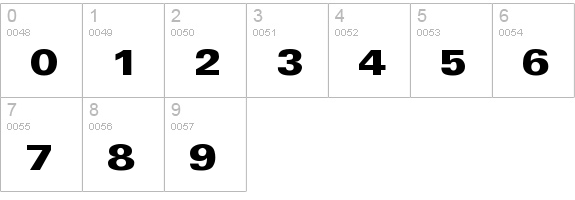
Universal Black Font Details
Universal Black is a maximum-weight, dramatic variant in the Universal typeface family \xE2\x80\x94 well suited to maximum-impact headlines, posters, and packaging.
Introducing the captivating and versatile Universal Black font, a true gem in the world of typography. This stunning typeface effortlessly combines elegance and boldness, making it the perfect choice for a wide range of design projects. Universal Black font exudes an air of sophistication and modernity, making it ideal for creating eye-catching headlines, striking logos, and stylish branding materials. Its clean lines and sleek curves bring a sense of professionalism and class to any design, whether it be a sleek website, a sleek magazine layout, or a sleek product packaging. One of the most remarkable aspects of Universal Black font is its versatility. It seamlessly adapts to various design styles, effortlessly complementing both minimalist and intricate compositions. Its bold and commanding presence commands attention, while its refined details add a touch of finesse and polish to any design. But what truly sets Universal Black font apart is its accessibility. This exceptional typeface is freely available to download at FontsMarket.com, allowing designers and enthusiasts alike to unleash their creativity without any restrictions. With just a few clicks, you can add this remarkable font to your collection and start creating stunning visuals that will leave a lasting impression. As a designer, you know the importance of having a comprehensive and diverse font library at your fingertips. Universal Black font is a valuable addition to any designer's toolkit, offering endless possibilities and ensuring that your designs stand out from the crowd. Its timeless appeal combined with its availability as a free download makes it an indispensable asset for both seasoned professionals and aspiring creatives. So, why wait? Unlock the full potential of your designs with Universal Black font. Download it today for free at FontsMarket.com and let your creativity soar to new heights.